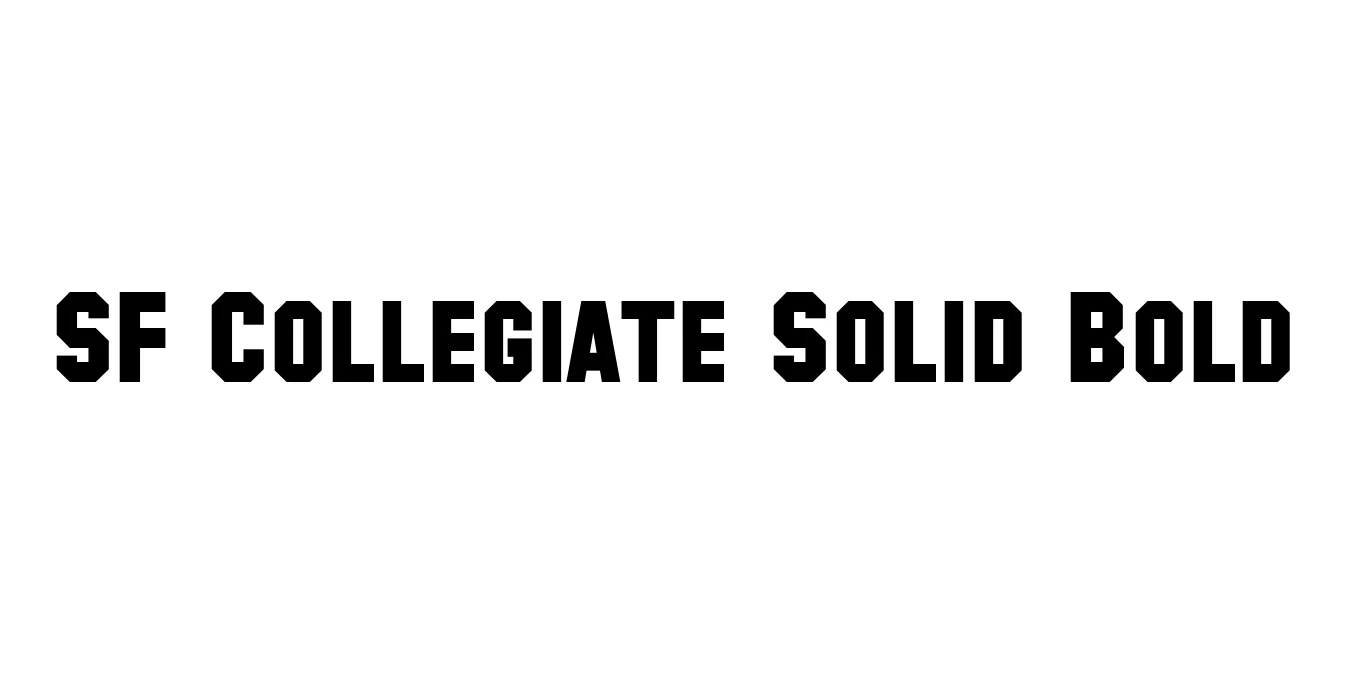
SF Collegiate Solid Bold
Designed by ShyFoundry (Derek Vogelpohl)
| Category | Display / Athletic |
SF Collegiate Solid Bold is a cornerstone typeface within the SF Collegiate family, designed by Derek Vogelpohl of ShyFoundry. This font is a definitive representation of the classic athletic varsity aesthetic, featuring heavy, blocky letterforms that evoke the spirit of American college sports. Unlike the outlined versions in the series, the 'Solid' weight provides a dense, impactful presence that ensures maximum visibility and authority in graphic layouts.
The typeface has been widely adopted by graphic designers for its ability to instantly communicate a sense of tradition and team spirit. Its geometric construction and thick strokes make it ideal for physical applications such as screen printing on jerseys and embroidery on campus apparel. Because it retains its clarity even at large scales, it is frequently used for stadium banners and high-impact sports headlines across digital and print media.
SF Collegiate Solid Bold Best Uses
Creating authoritative logos for local and professional sports teams.
Designing traditional university-style hoodies, t-shirts, and caps.
Generating high-impact headlines for homecoming or game-day announcements.